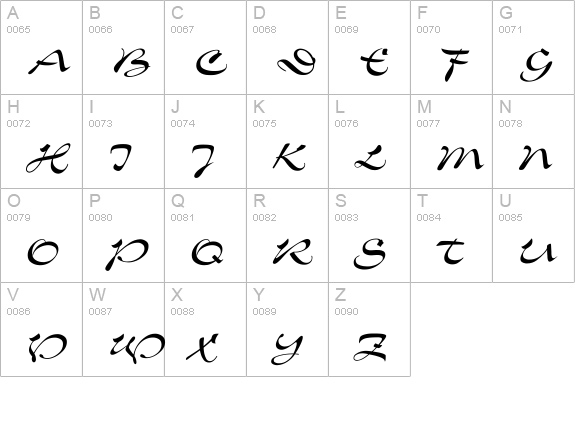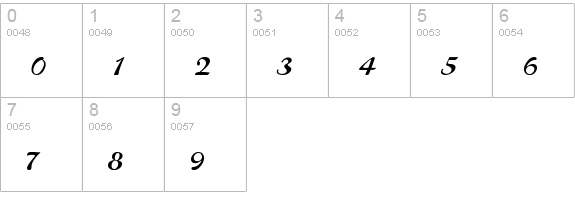
Sloggi Font Details
Introducing Sloggi font, a stunning typeface that effortlessly combines elegance with modernity. This versatile font is perfect for a wide range of design projects, from brand identities to editorial layouts and everything in between. Sloggi font features clean, sharp lines and a distinct balance between thick and thin strokes, creating a harmonious and eye-catching visual appeal. Its timeless design is both sophisticated and approachable, making it suitable for any creative endeavor. With its extensive character set, Sloggi font offers you endless possibilities to bring your ideas to life. Whether you're designing a logo, poster, or website, this font will add a touch of refinement and professionalism to your work. But what sets Sloggi font apart is that it is not only aesthetically pleasing but also free to download at FontsMarket.com. Yes, you read that right – this remarkable font can be yours without any cost. Simply visit FontsMarket.com and start exploring the world of Sloggi font today. Embrace the freedom of creativity with Sloggi font. Its seamless integration into your projects will elevate your designs and captivate your audience. Don't miss out on this exceptional opportunity to enhance your typography collection with a font that is both visually striking and freely accessible. Download Sloggi font now and unlock a world of endless design possibilities.